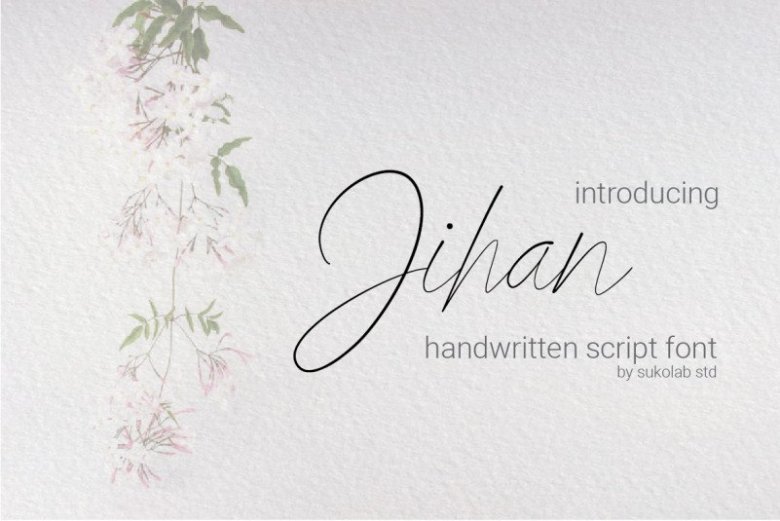
Jihan Font
Jihan Script Font comes with many additional features which allow you to customize your text. Made from font designer named Sukolab std. This typeface is handwritten script font that look elegant and universal. This font can be used for various purposes such as brand names, invitations, posters, book covers, etc.